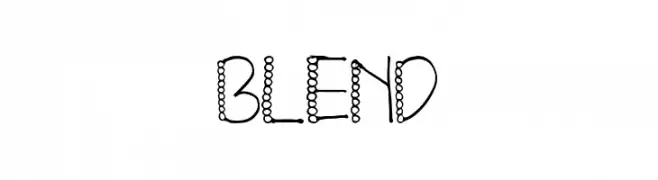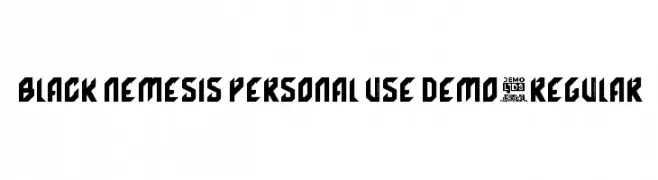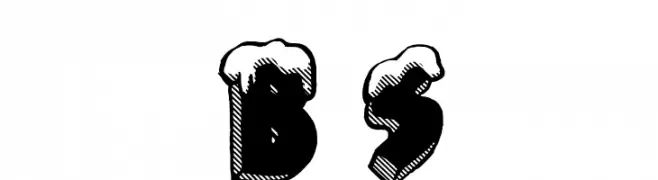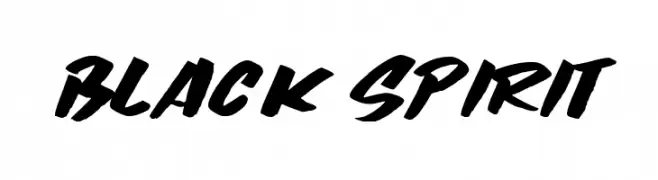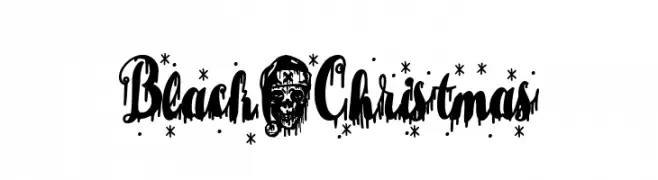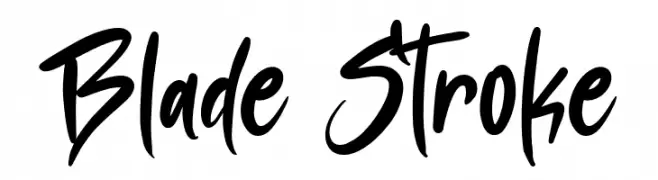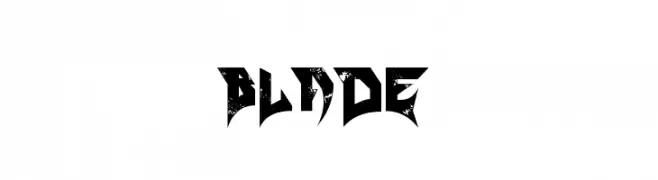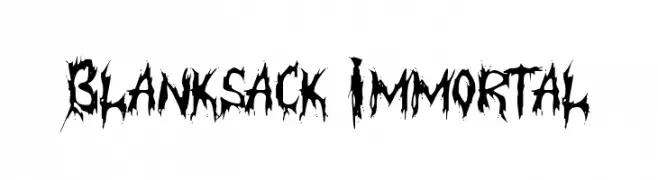
• Black Nemesis Personal Use DEMO-Regular
• Black Santa
A bold, festive font with snow-capped, three-dimensional letters perfect for holiday themes.
• Black Spirit
A bold, brush-style font with dynamic and energetic strokes.
• Black_Christmas
A bold, dripping font with star accents, perfect for gothic or festive themes.
• Blacktail Regular
A bold, decorative font with vintage, western-inspired detailing.
• Blade
A bold, angular font with a distressed, edgy appearance.
• Blade Stroke
A bold, brush script font with dynamic and expressive strokes.
• Blank Smile
A bold, expressive script font with flowing, cursive letterforms.
• Blanksack Immortal
A dramatic, jagged font with a gothic, horror-inspired style.
• BLEND
A playful, dotted font with a hand-drawn, whimsical style.